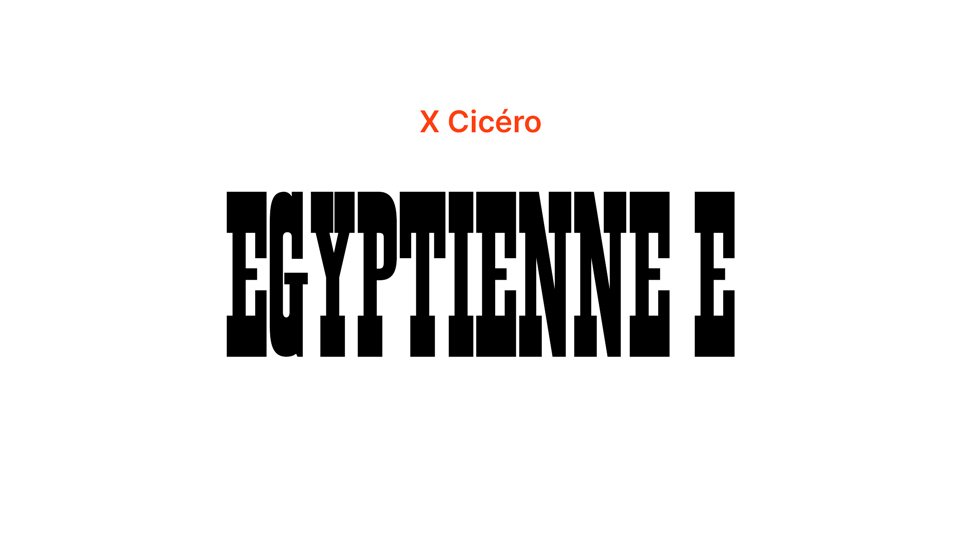
Download Egyptienne E font, a condensed slab serif typeface drawn from an unidentified incomplete wood type set. Egyptienne E is a straightforward Western font in look and design.
Designer: Cédric Rossignol Brunet